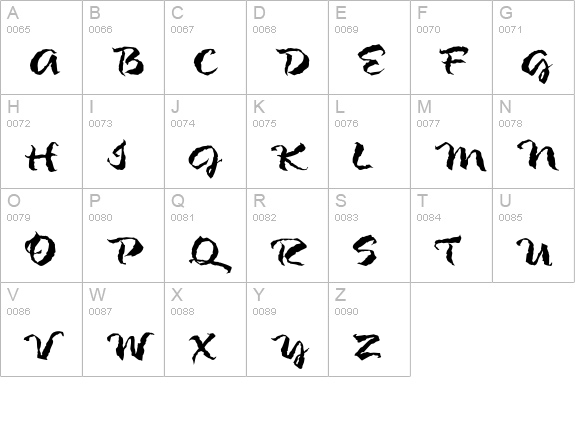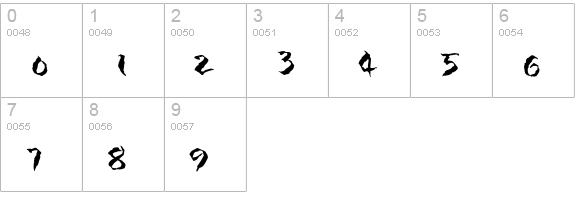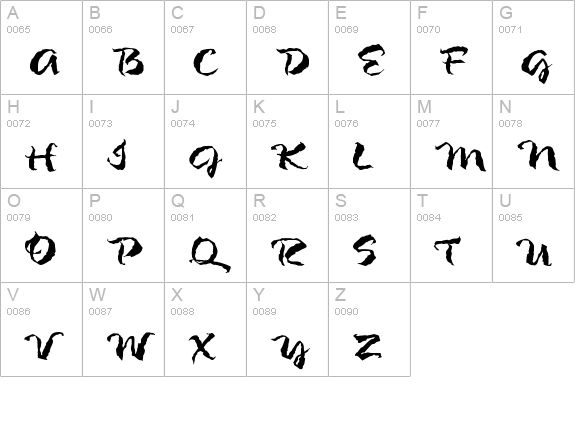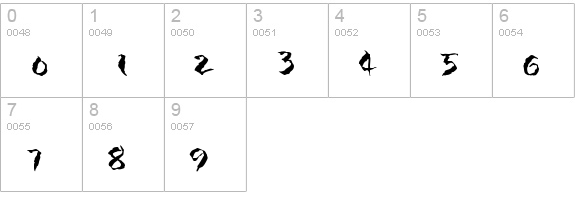
Shameless Font Details
Introducing Shameless font, a stunning typeface that embodies the essence of boldness and confidence. This font is a perfect choice for those who dare to stand out and make a statement with their designs. Shameless font features a unique combination of sharp edges and sleek curves, creating a harmonious balance between strength and elegance. Every letter is meticulously crafted to exude a sense of fearlessness, making it an ideal choice for eye-catching headlines, striking logos, and impactful branding projects. What sets Shameless font apart is not only its impeccable design, but also its accessibility. We believe that creativity should be free, and that's why Shameless font is freely available to download at FontsMarket.com. This means that designers and enthusiasts alike can enjoy the benefits of this exceptional font without any limitations. With Shameless font, you have the freedom to explore endless creative possibilities. Whether you're designing a poster for a thrilling event, crafting a captivating website, or even creating unique merchandise, this font will elevate your designs to new heights. Its versatility and adaptability make it a valuable asset in any designer's toolkit. So, don't hold back - embrace the audacity of Shameless font and let your designs speak volumes. Download it for free today at FontsMarket.com and unleash your creativity like never before.